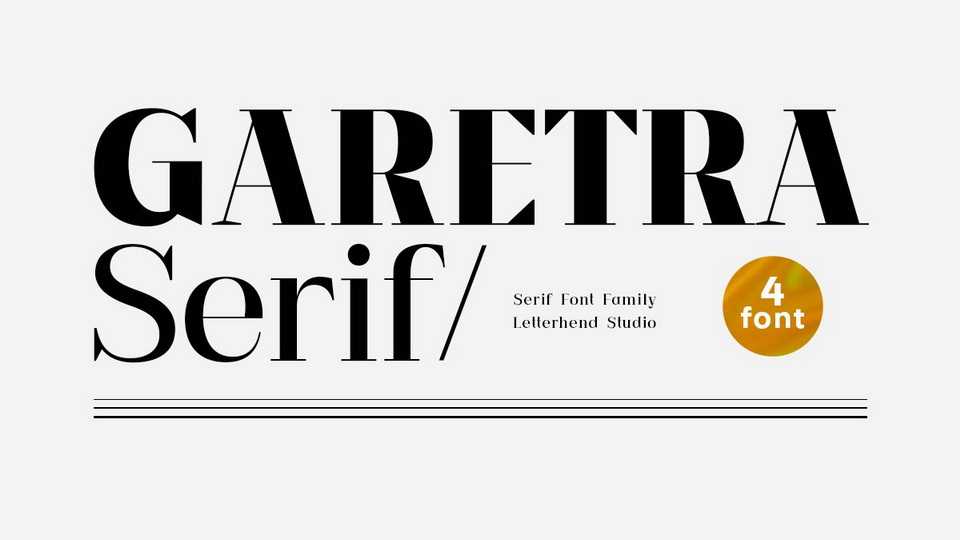
Download Garetra Serif is a sophisticated serif with a modern and stylish appearance. Garetra Serif is perfect to be applied to various formal design such as labels, logos, magazines, books, greeting and wedding cards, packaging, fashion, make up or any type of advertising purpose.